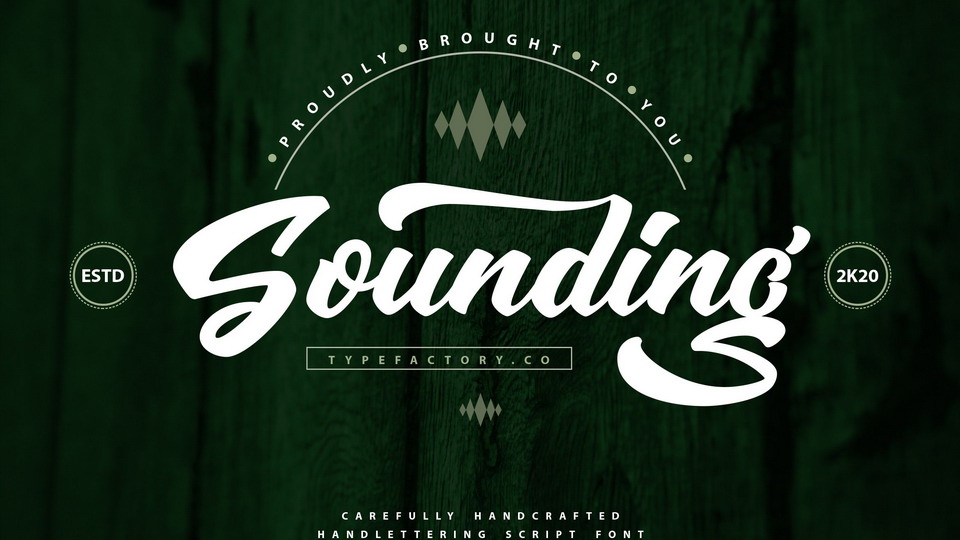
Sounding Script Font
Sounding is a beautiful handwritten font, featuring a retro flow. It is perfectly suitable for creating quotes, book covers, lifestyle designs, logos, magazine titles and so much more.